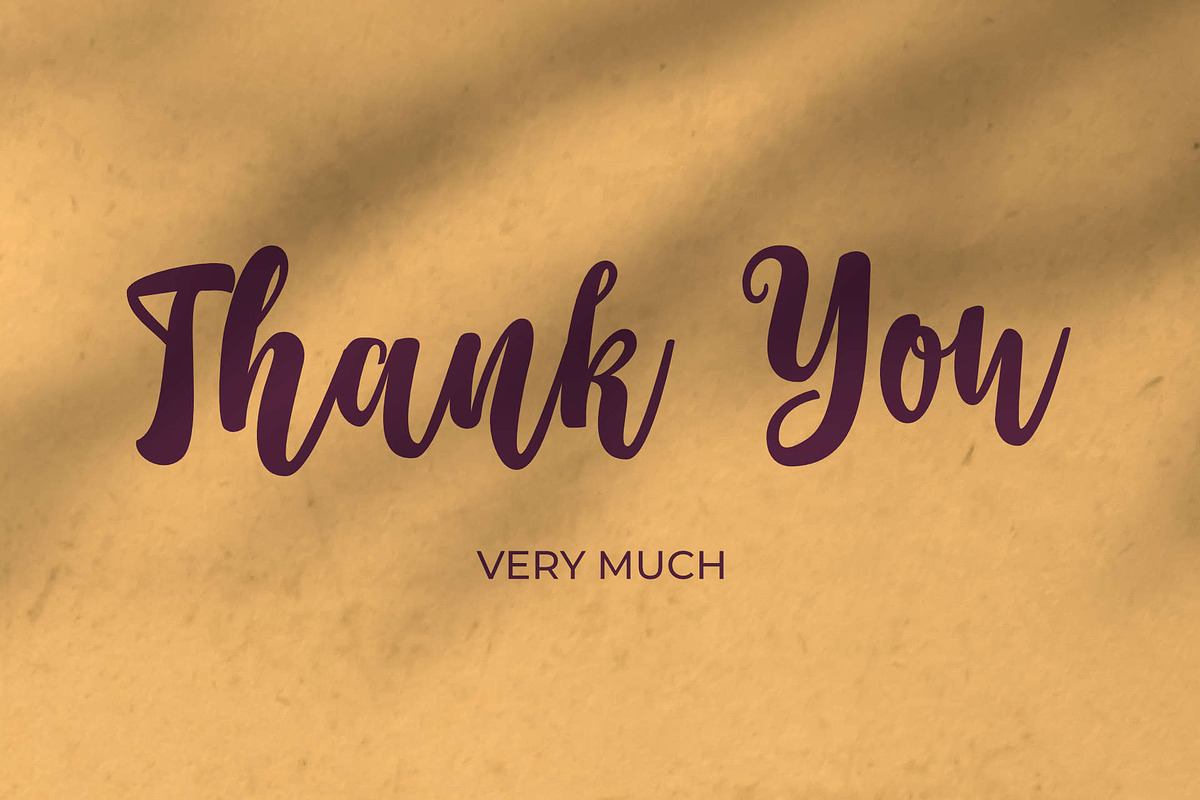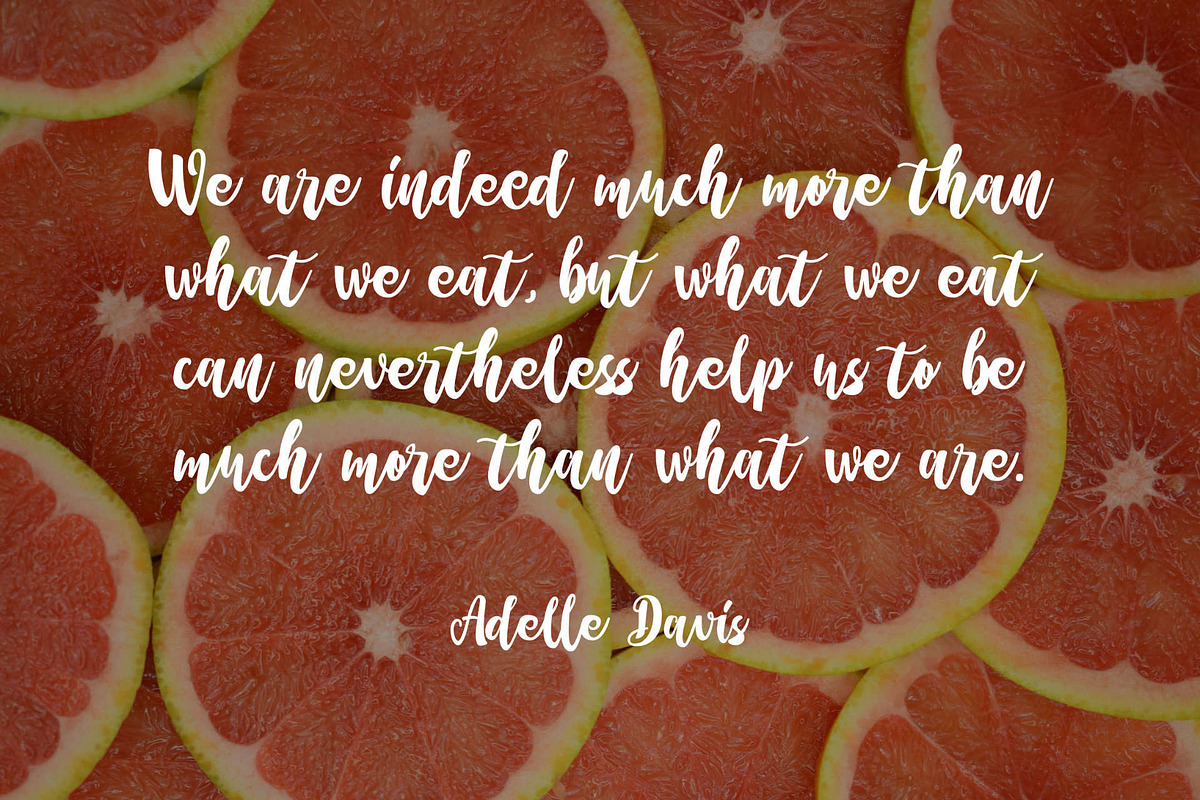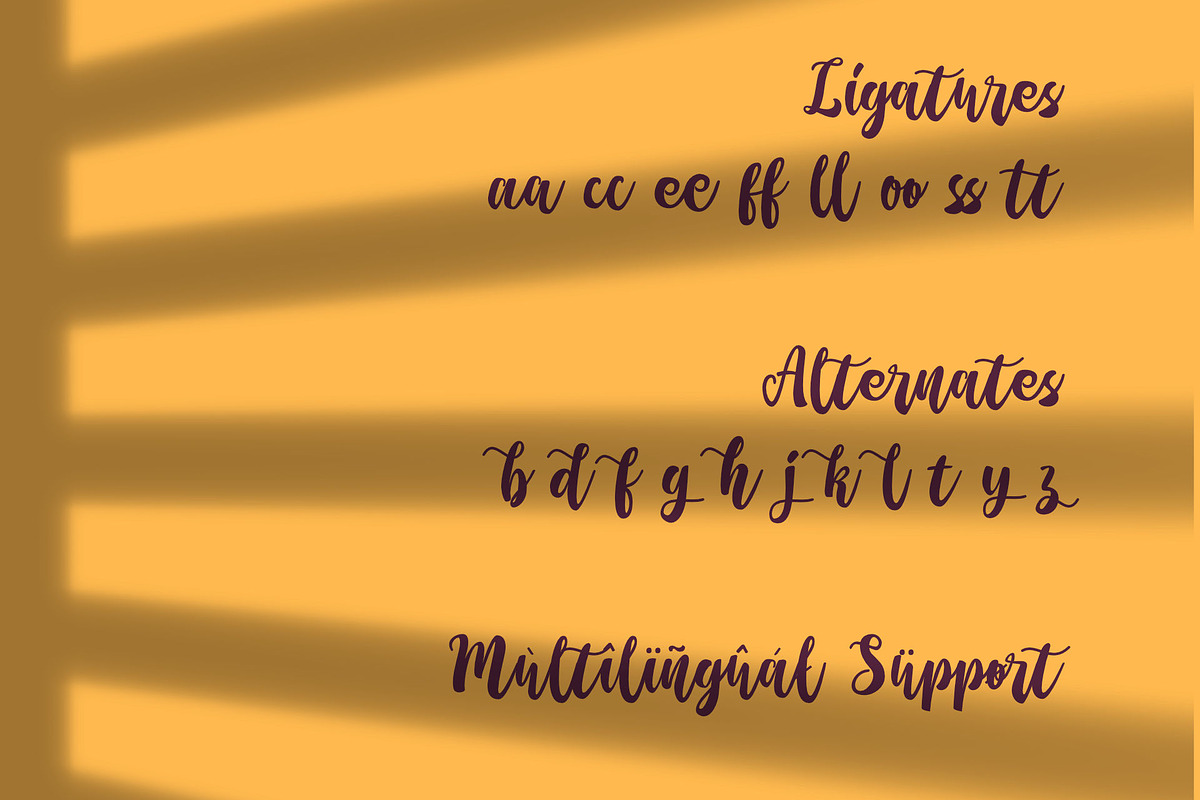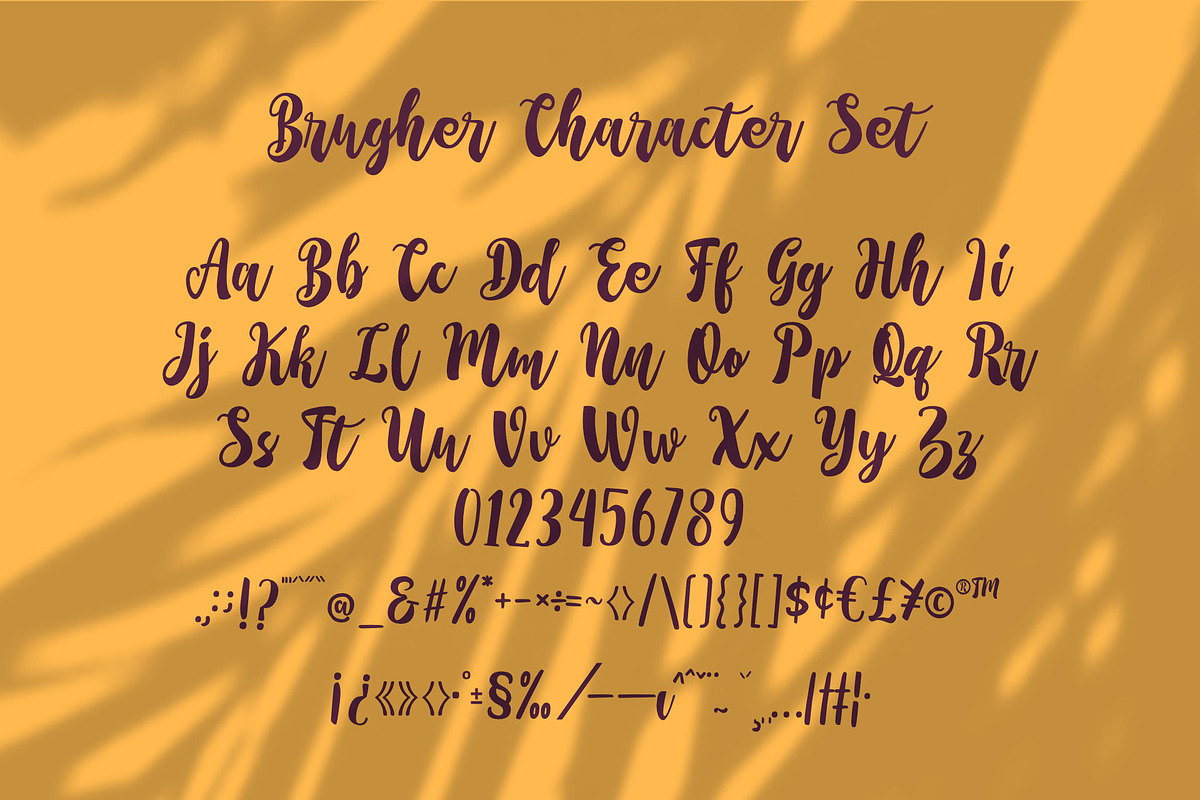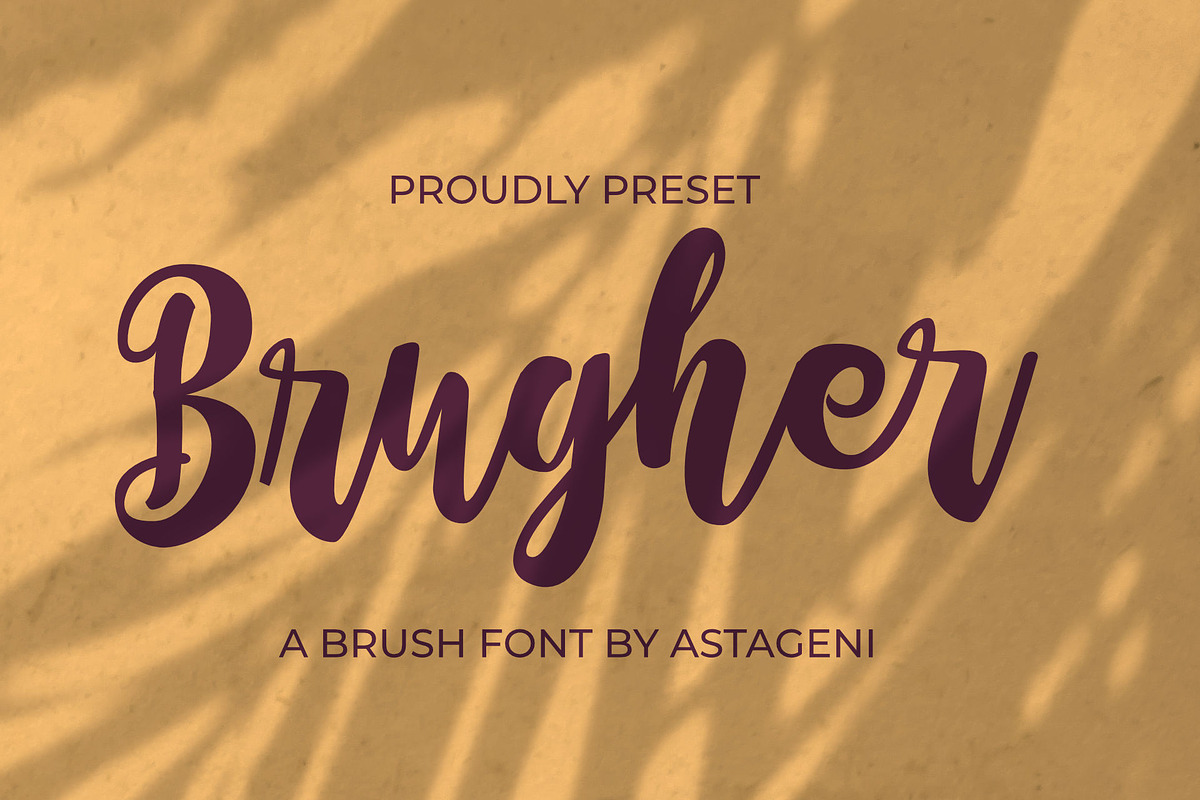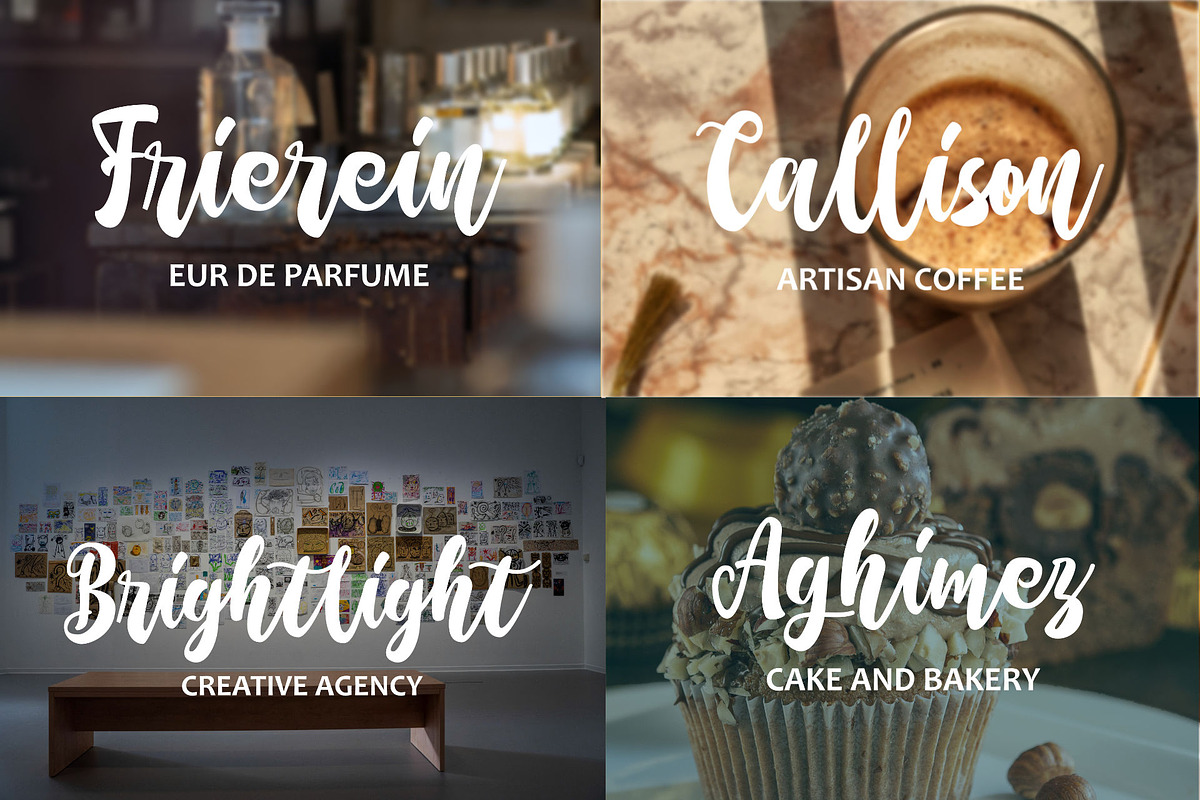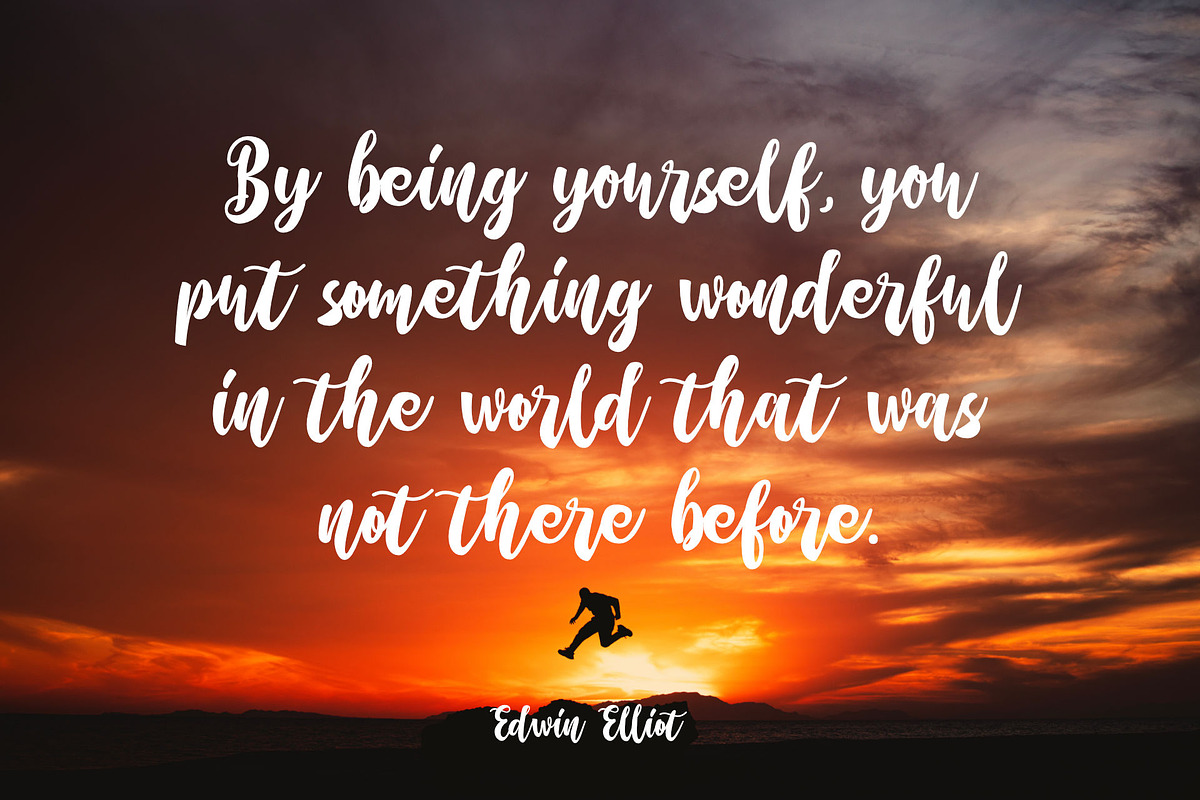
Brugher
We Provide You one of the best Stylish Hand Written Script. Best match for logos, header, Titles, Prints & other Creative process possibilities. Create a Extraordinary Typography / lettering results by using Brugher font script